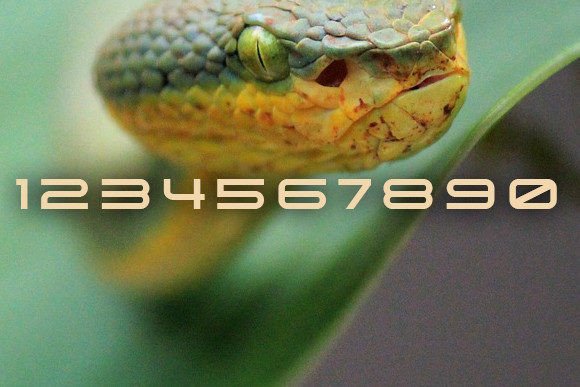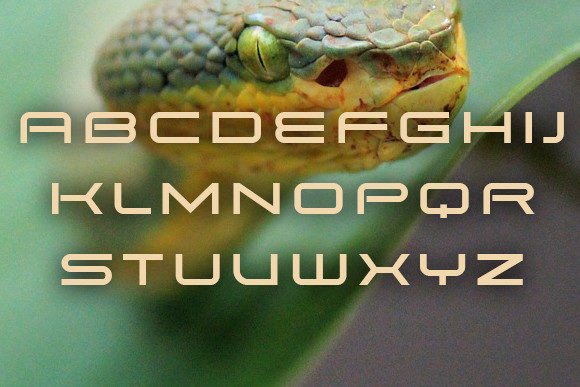
Introduction to Pitviper Font Font
Fonts play a crucial role in design, and the Pitviper Font font is a typeface that brings both character and versatility to any project. Whether you’re working on a branding project, a website, or a print design, the Pitviper Font font offers a unique style that can elevate your work.
Pitviper is a cool techno display typeface that will look great on all your designs that require bold and daring typography.
Add it to your most creative ideas and notice how it makes them come alive .
Key Features of Pitviper Font Font
Why Choose Pitviper Font Font?
The Pitviper Font font is more than just a typeface – it’s a design tool that helps you communicate your message with style and clarity. Its unique character set and versatile design make it suitable for a wide range of applications, from elegant invitations to bold headlines.
With its carefully crafted letterforms and balanced proportions, the Pitviper Font font ensures readability and visual appeal across all mediums.
What makes Pitviper Font font special?
The Pitviper Font font stands out with its unique design, exceptional readability, and versatility across various design applications.